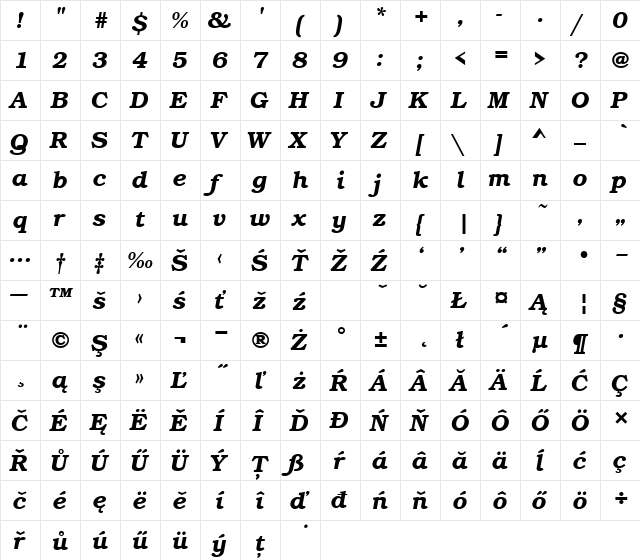
BookmItcTEEDemBol Italic Font Preview
BookmItcTEEDemBol Italic
Design Context for BookmItcTEEDemBol Typeface
BookmItcTEEDemBol offers clean, dependable letterforms without strong stylistic allegiance, making it a practical choice for designers who need flexibility. Its italic angle brings a sense of urgency and motion to the letterforms.
Pro Tip: Use BookmItcTEEDemBol for emphasis, pull quotes, and subheadings where its slanted energy can add rhythm to the layout.